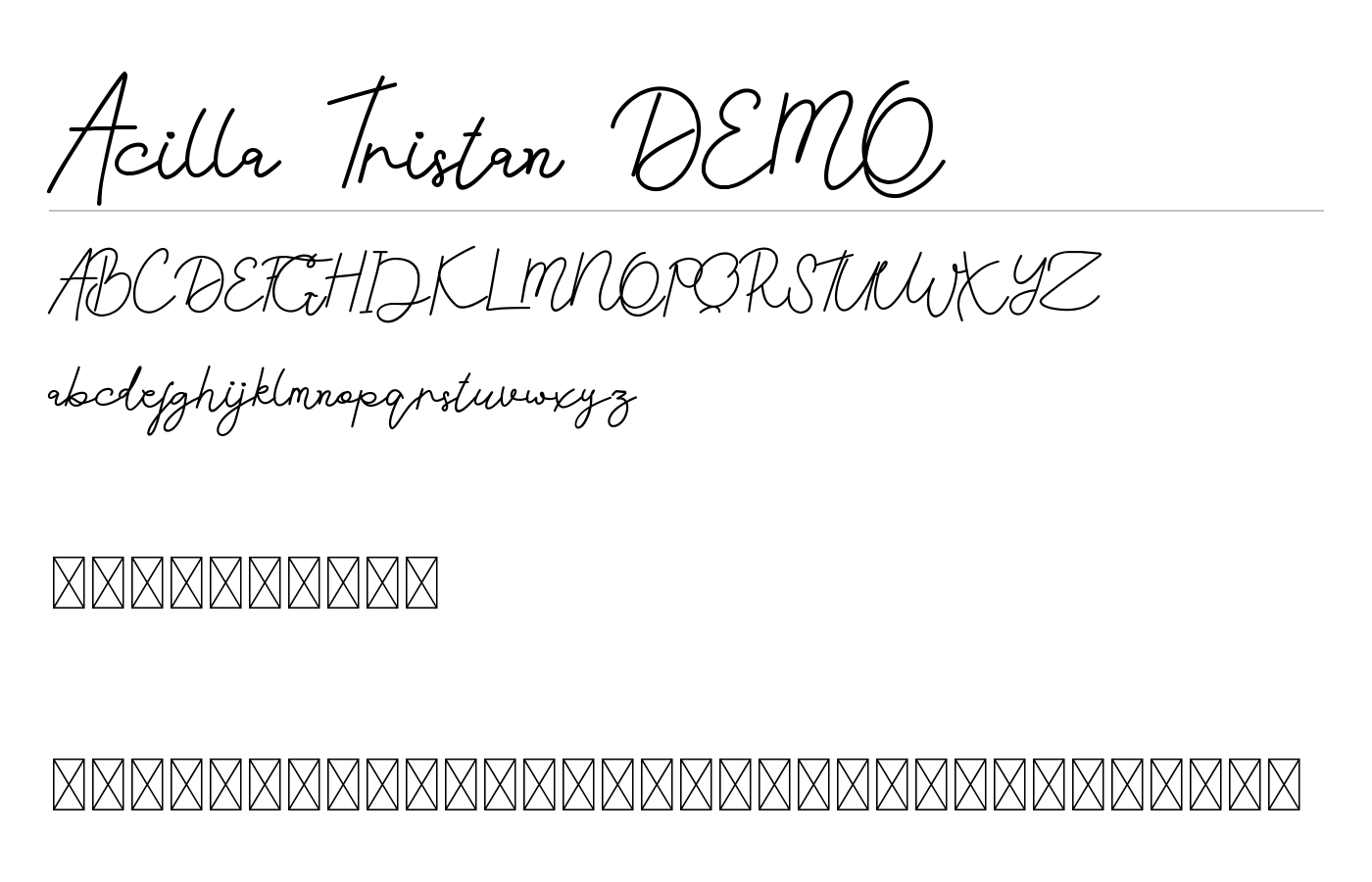
Acilla Tristan DEMO is a delicate, handwritten script font characterized by its thin, elegant lines and playful, casual style. Its tall, narrow letterforms with smooth, flowing curves make it perfect for adding a personal, artistic touch to branding, invitations, or editorial headlines. This font’s light and airy feel communicates creativity and sophistication, ideal for projects seeking a modern yet approachable look.
Acilla Tristan DEMO Font
About Acilla Tristan DEMO Font